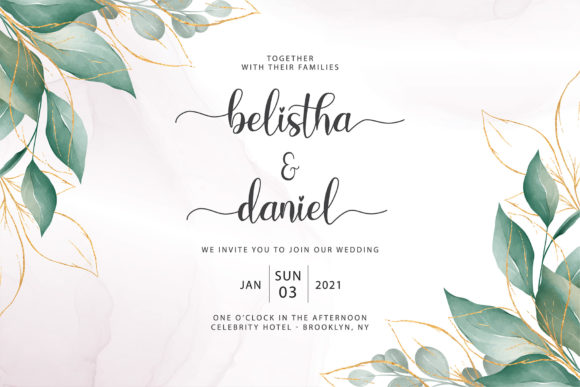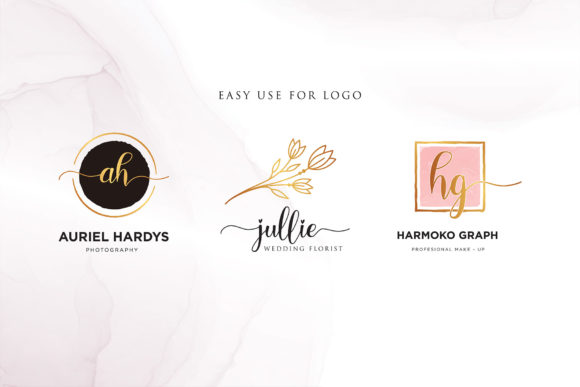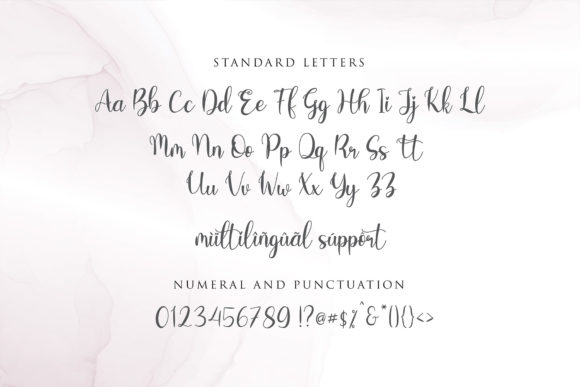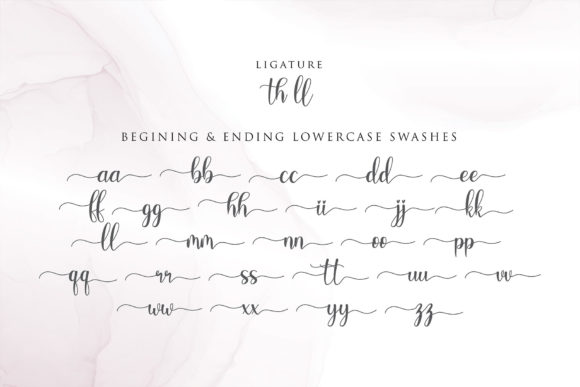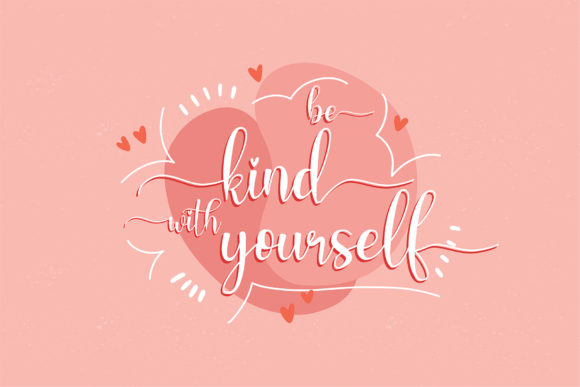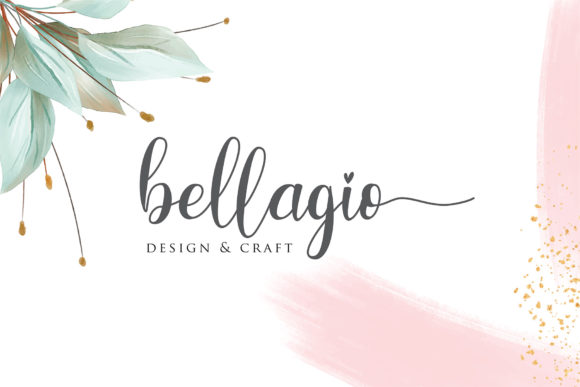
Bentho Font: A Timeless Elegance with Romantic Flair
In the world of typography, few fonts manage to capture the essence of romance and elegance as effortlessly as Bentho. This beautiful script font is meticulously crafted to bring a touch of sophistication and authenticity to any design project. Whether you’re a designer looking for the perfect font to elevate your branding, a crafter seeking to add a personal touch to your DIY projects, or simply a typography enthusiast, Bentho is sure to captivate you with its unique charm.
The Story Behind Bentho
Bentho is more than just a font; it’s a blend of traditional calligraphy and modern design sensibilities. The creators of Bentho aimed to produce a script font that exudes a sense of romance and timelessness, making it versatile enough for a wide range of applications, from wedding invitations and branding materials to packaging and digital content.
Key Features of Bentho Font
- Romantic Style: Bentho embodies a romantic aesthetic that is perfect for designs requiring a touch of elegance and sophistication.
- Timeless Elegance: The font’s classic appeal ensures that it remains relevant and stylish, regardless of current design trends.
- Authentic Calligraphy: With its roots in traditional calligraphy, Bentho brings an element of authenticity to digital and print designs.
- Versatility: Bentho can be used in various design projects, including but not limited to, logos, branding, invitations, and social media graphics.
- Easy to Read: Despite its elegant and cursive nature, Bentho maintains a high level of readability, making it suitable for both headings and body text.
Uses of Bentho Font
The versatility of Bentho makes it an excellent choice for a multitude of design applications. Here are some popular uses:
- Wedding and Event Planning: Create stunning wedding invitations, save-the-date cards, and event banners that set the tone for a memorable occasion.
- Branding and Logo Design: Elevate your brand with a sophisticated and elegant logo that stands out from the competition.
- Packaging Design: Add a touch of luxury and elegance to your product packaging, making it more appealing to potential customers.
- Digital Content: Enhance your website, blog, or social media graphics with Bentho, adding a professional and stylish flair to your online presence.
- Crafting and DIY Projects: Whether you’re creating handmade cards, scrapbooking, or working on other craft projects, Bentho can add a beautiful, personal touch.
Tips for Using Bentho Effectively
To maximize the impact of Bentho in your designs, consider the following tips:
- Pair with Complementary Fonts: Combine Bentho with simpler, sans-serif fonts for contrast and visual interest.
- Adjust Letter Spacing: For headings, consider increasing letter spacing to emphasize the elegance of the font.
- Use in Moderation: While Bentho is beautiful, it’s best used in moderation. Use it for titles, headings, or key phrases to draw attention.
- Experiment with Colors: Bentho looks stunning in a variety of colors, but it’s particularly striking in metallic or pastel shades that enhance its romantic feel.
Bentho font is a remarkable addition to the world of typography, offering a perfect blend of romantic style, timeless elegance, and authentic calligraphy. Its versatility and readability make it an excellent choice for designers and crafters looking to add a touch of sophistication to their projects. With Bentho, you can create designs that are not only visually stunning but also convey a sense of elegance and romance. Whether you’re working on a professional design project or a personal crafting endeavor, Bentho is sure to inspire and elevate your creative work.